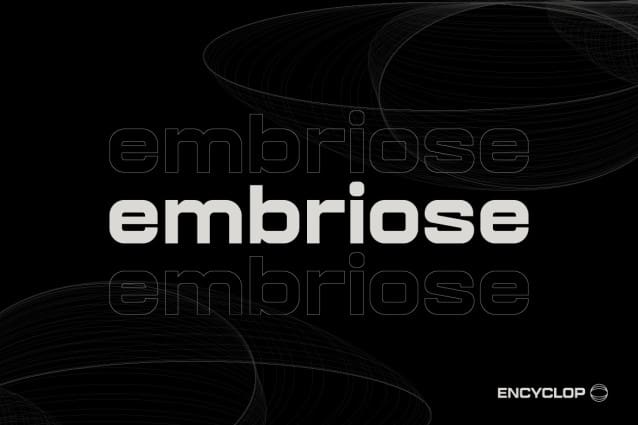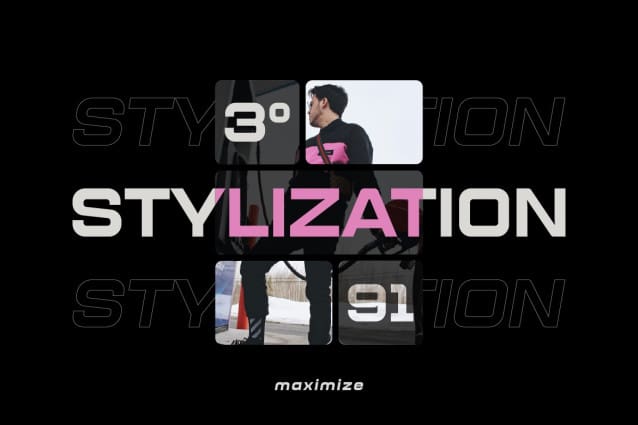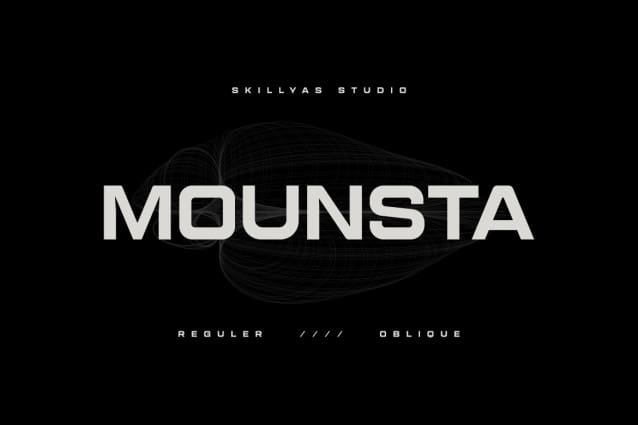
Mounsta Font
Mounsta Font – Modern Sans Display font is a bold and versatile sans-serif typeface designed for impactful visual appeal. Mounsta’s clean and modern lines make it suitable for headlines, posters, and branding that require a strong, attention-grabbing look. This Font Comes with 2 variables Regular and Italic Oblique.